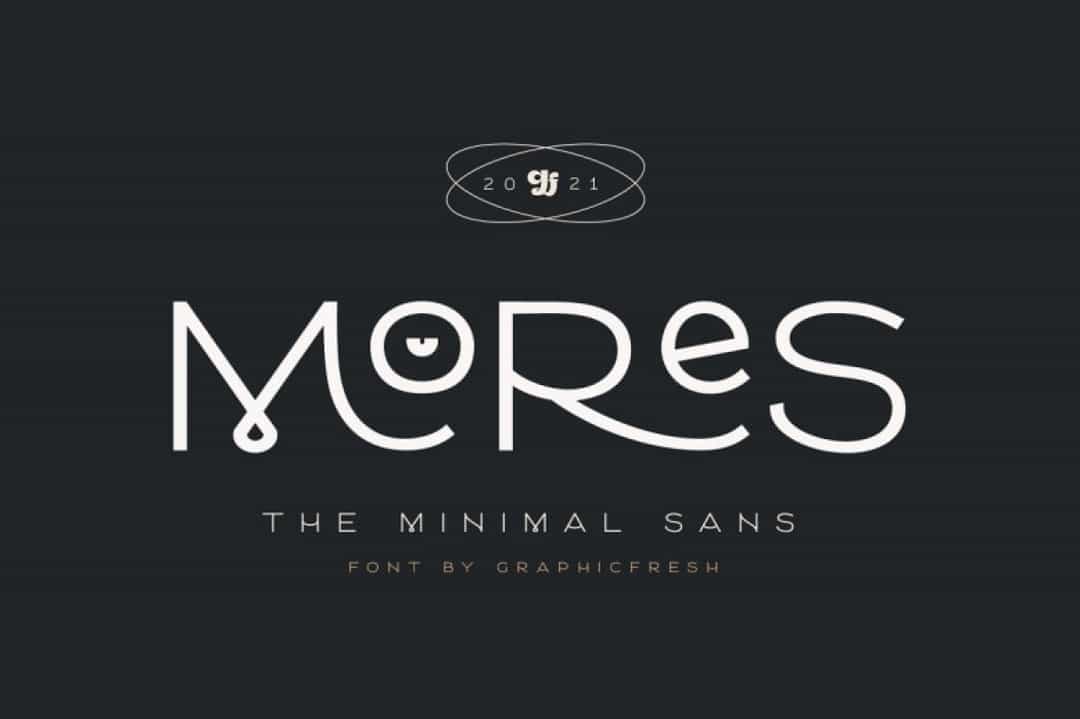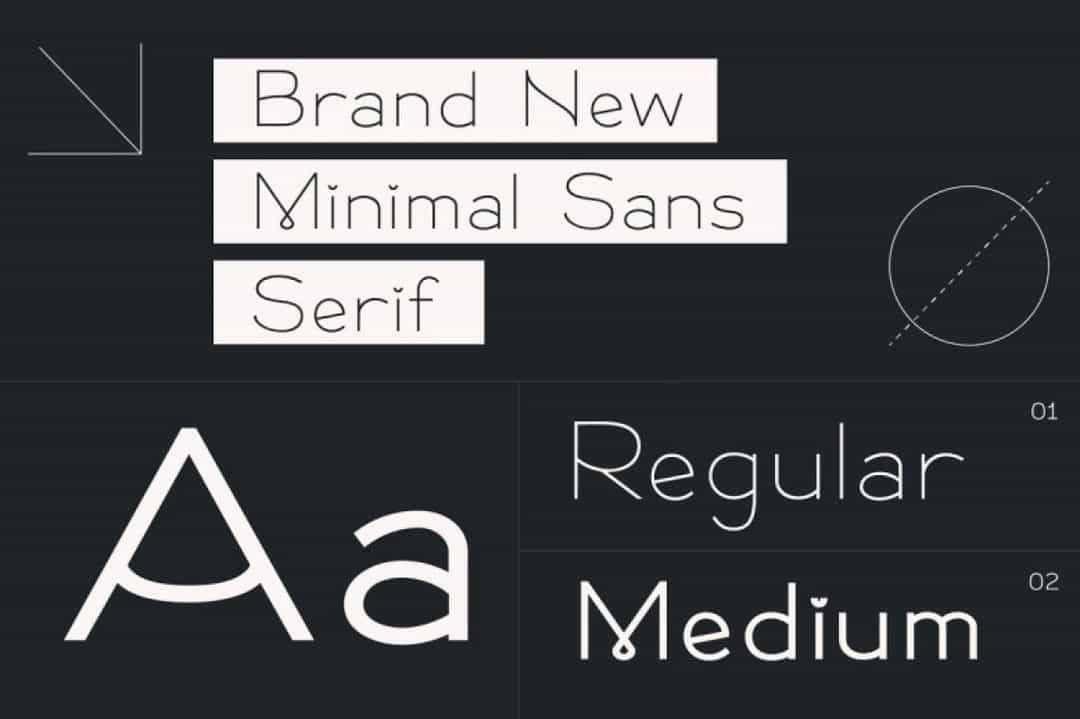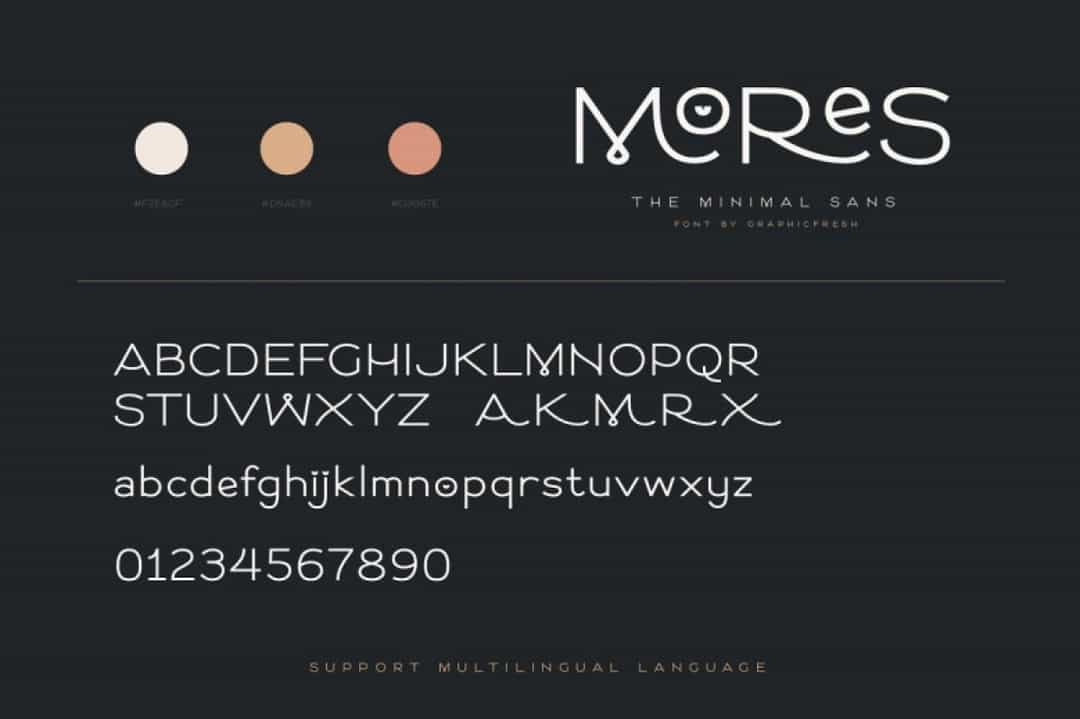
Mores is a minimalist sans serif font designed to be versatile for packaging, logo branding and other purposes. Available both medium and regular format formats with italics support. If you find this font to your liking make sure to save and give it as gifts to loved ones!